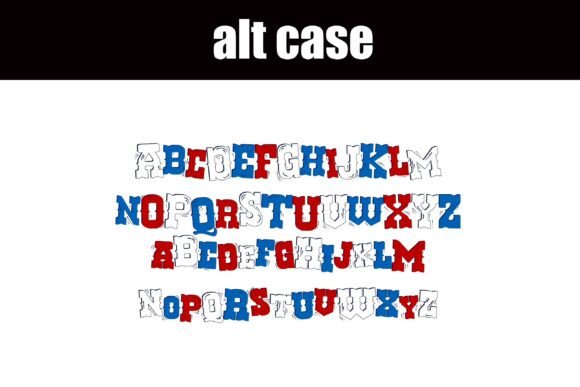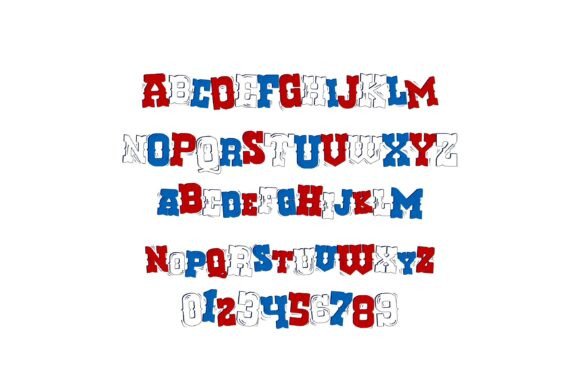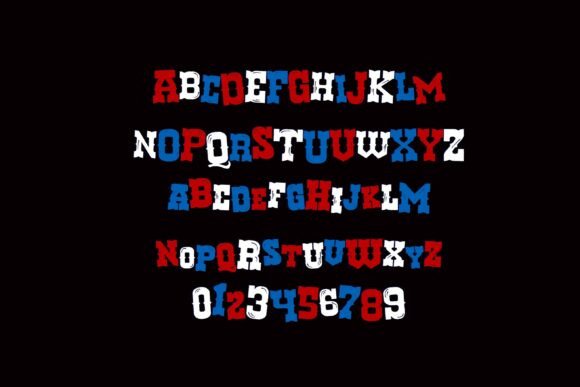
Introduction to Howdy Patriot Font
As a designer, have you ever struggled to find the perfect font to add a touch of personality to your creative project? You know, that elusive combination of style, whimsy, and Americana charm that just makes your design pop? For me, that moment of inspiration often comes when I stumble upon a unique and high-quality font that perfectly captures the essence of my design vision. And that’s exactly what I want to share with you today – the incredible Howdy Patriot Font.
This full-color font is a game-changer for any designer looking to add a touch of patriotic flair to their work. With its dancing western style and vibrant Americana colors, it’s the perfect design resource for creating eye-catching logos, social media graphics, and more. And the best part? It’s available for free download, making it an invaluable asset for any designer looking to elevate their creative projects.
Key Features of Howdy Patriot Font
- Unique Western-inspired design, perfect for creative projects and patriotic themes
- High-quality font with transparent background, ideal for use on any design resource
- Customizable and versatile, suitable for a wide range of creative projects and design needs
Honest Review: Howdy Patriot Font
- ✨ Unique and eye-catching design: The Howdy Patriot Font has a distinct, patriotic flair that’s perfect for projects that need a bold statement.
- ✨ High-quality glyphs: The font features crisp, well-rendered characters that look great in a variety of contexts.
- ✨ Transparent background: This font is suitable for projects with transparent backgrounds, allowing the design to shine through without any unwanted distractions.
- ⚠️ Limited font weights: The Howdy Patriot Font is only available in a single weight, which may limit its versatility in certain design applications.
- ⚠️ Not suitable for complex text: Due to its bold, eye-catching design, this font may not be the best choice for complex text or body copy.
Overall, I think the Howdy Patriot Font is a great addition to any designer’s toolkit. Its unique design and high-quality glyphs make it perfect for creative projects that need a bold statement. While it may have some limitations, it’s a free download that’s definitely worth checking out.
How to Use Howdy Patriot Font
The Howdy Patriot Font is a free design resource perfect for any creative project requiring a touch of patriotism. This high-quality font is ideal for designers and artists looking for a unique and bold style.
Designing with Howdy Patriot Font
Tips for Getting the Most Out of Howdy Patriot Font
To get the most out of the Howdy Patriot Font, try using it with a transparent background to create a bold and eye-catching design. You can also experiment with different font sizes and styles to add depth and interest to your design.
The Howdy Patriot Font is perfect for a variety of creative projects, including:
- Graphic design projects
- Printable art
What makes the Howdy Patriot Font a high-quality design resource?
The Howdy Patriot Font is a high-quality design resource due to its crisp, clear characters and transparent background, making it perfect for use in a variety of creative projects, from logos and branding to digital art and print materials. The font is also highly customizable, allowing designers to adjust the size, color, and style to suit their needs.